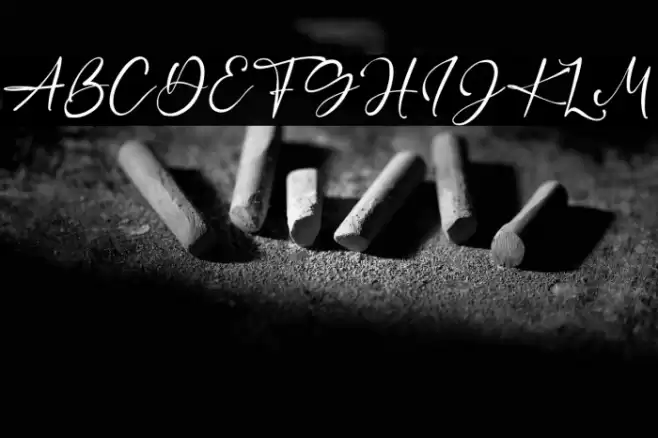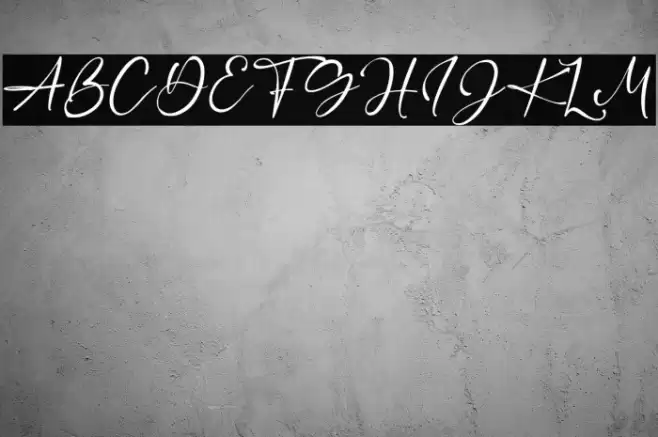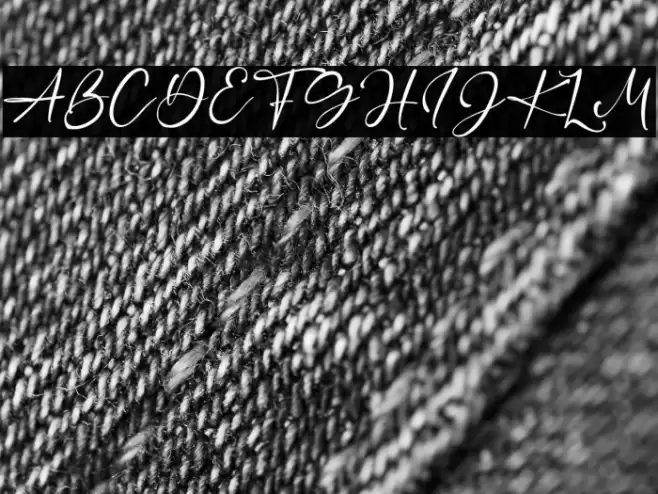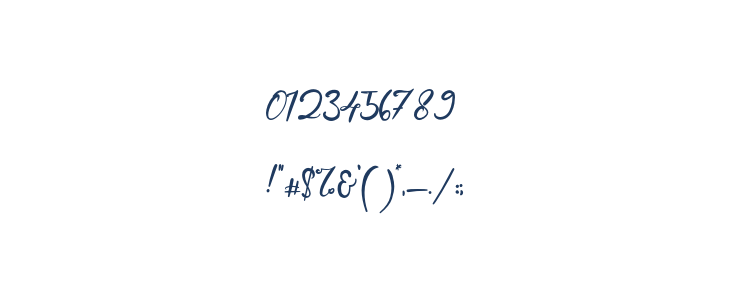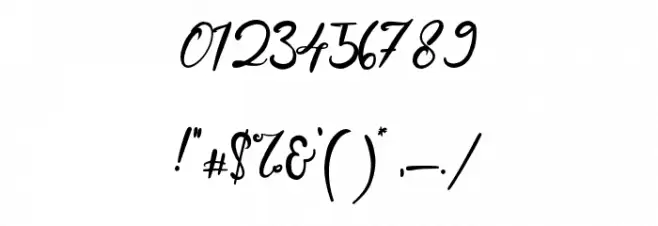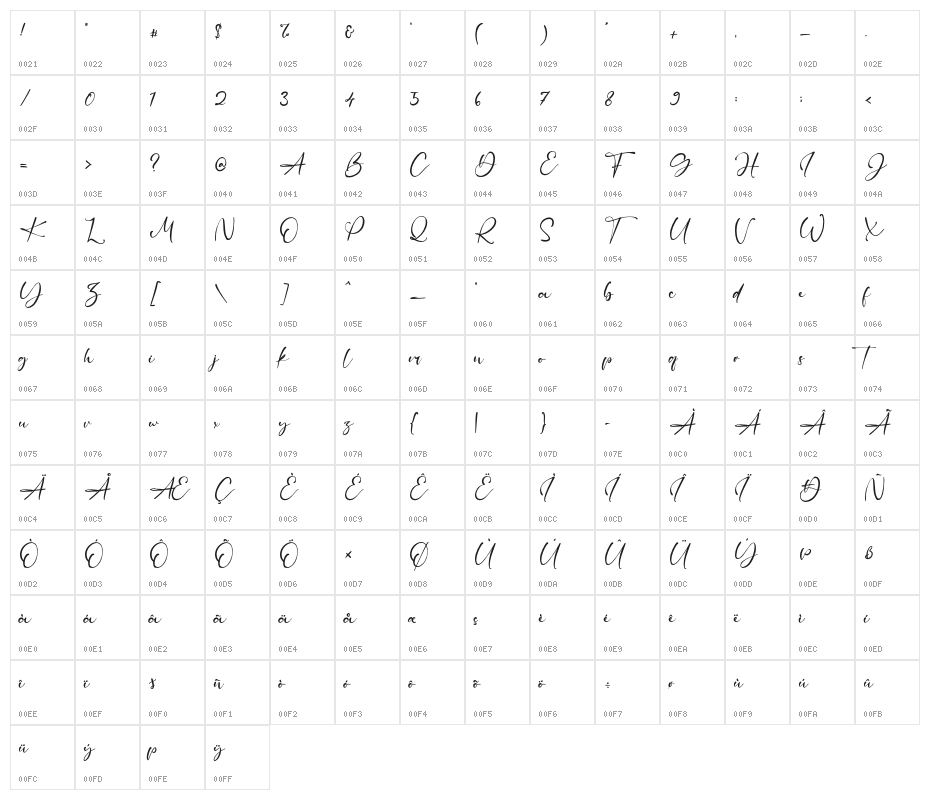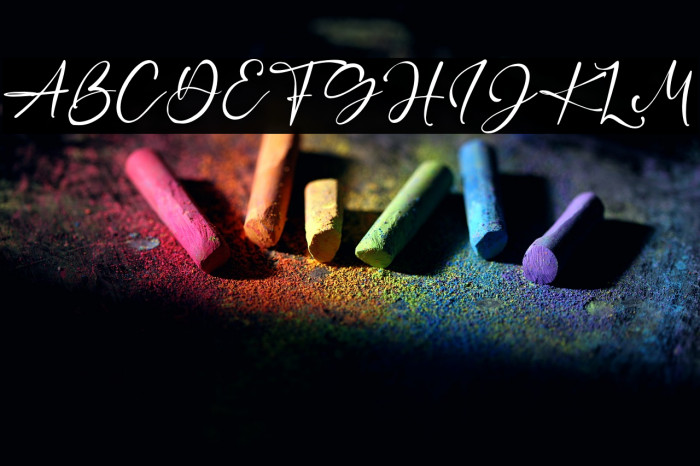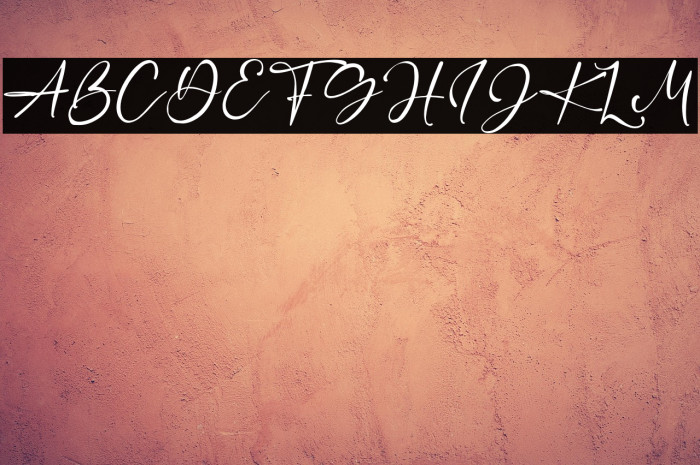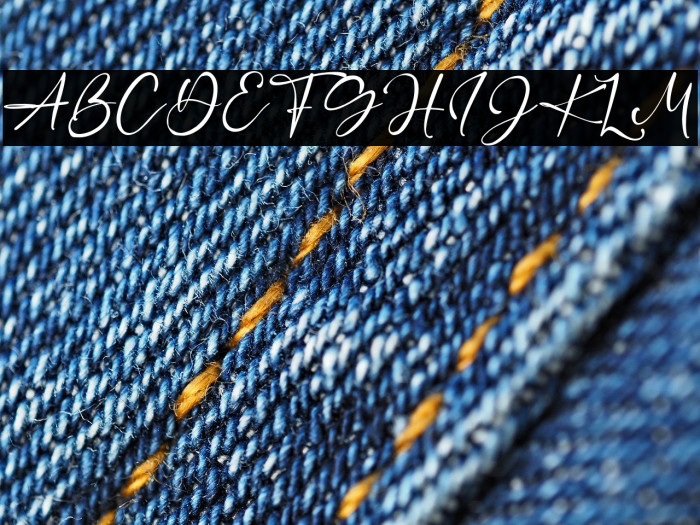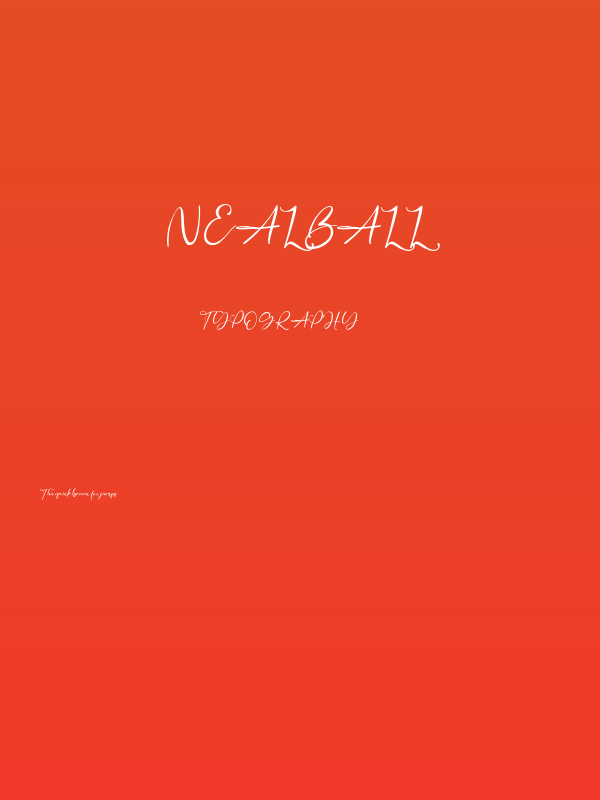
NealBall Font
NealBall Description
This font features a flowing, cursive style that exudes elegance and sophistication. The characters are connected in a fluid manner, creating a seamless and continuous look. The uppercase letters are slightly more ornate, with flourishes that add a touch of drama, while the lowercase letters maintain a consistent, smooth appearance. The numbers and special characters are designed to match the overall aesthetic, ensuring a cohesive look across all text. This font is perfect for projects that require a personal, handwritten touch, such as invitations, greeting cards, or branding materials.
A flowing, cursive font with elegant, connected characters from Uncategorized fonts.
- Font: NealBall
- Proposed Projects: Ideal for wedding invitations, personal branding, greeting cards, and elegant packaging.
- Overall Style: Elegant, Handwritten
- Use Case: Logos, Invitations, Greeting Cards